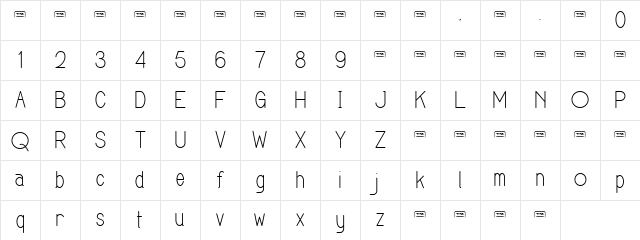
Complete DEVINLAND lovecocky Free Trial Regular glyph index. Displaying only characters natively supported by DEVINLAND lovecocky Free Trial Regular font.
DEVINLAND lovecocky Free Trial is a composed and adaptable typeface that performs quietly and consistently across a wide range of design contexts.